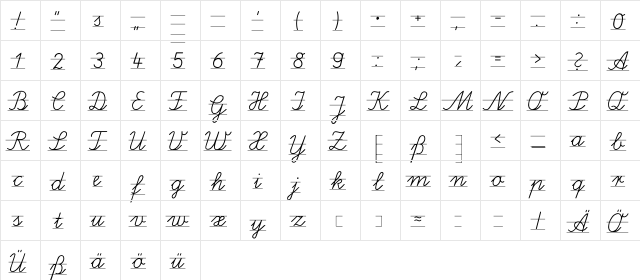
Schreibschrift 3. Klasse Regular
Design Context for Schreibschrift 3. Klasse Typeface
Schreibschrift 3. Klasse takes a measured approach to typography — its balanced proportions and neutral character make it a reliable workhorse for both digital and print work.